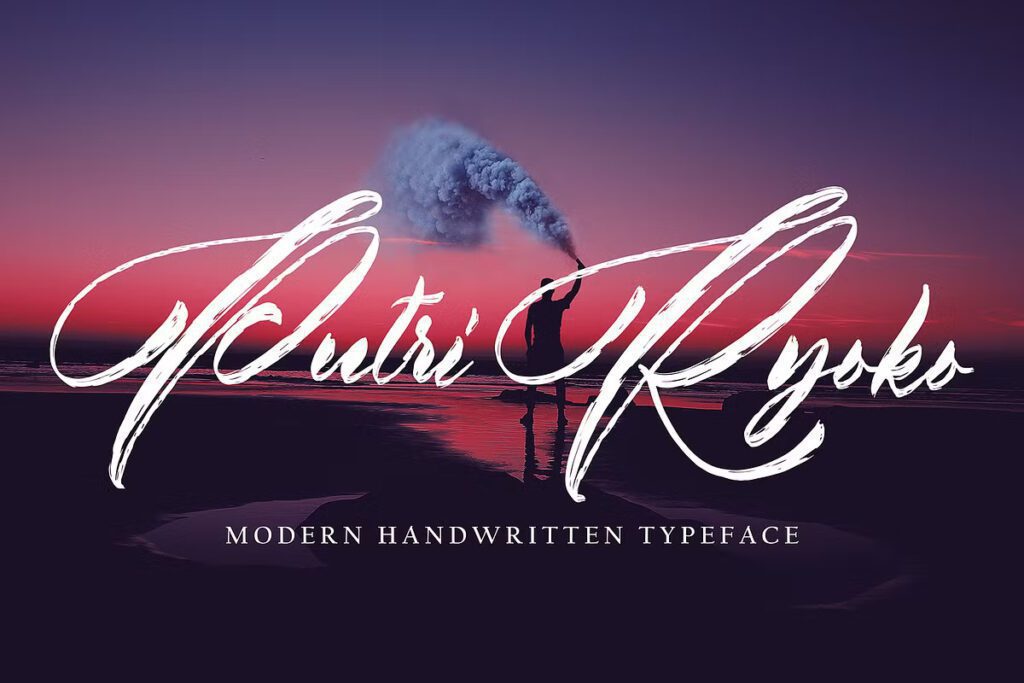
A handwritten script, not a display face
Putri Ryoko is sometimes billed as a versatile display font. Creative Market files it under Handwritten fonts, and the listing’s related searches point to logotype, cursive, signature, calligraphy and script styles. That is a more useful starting point. Expect a pen-drawn script rather than a bold poster face.
HaKi Studio’s own description is short. It says Putri Ryoko has a “new style” and suggests it for quotes, logos, blog headers, posters, branding, letters, invitations and stationery. The listing has five preview images. We have not examined the font files, so we cannot tell you whether it includes extras such as ligatures, swashes or alternate letters. The listing does not mention any, and it does not state language support either. If you need accented letters, type them into the live preview before you buy.
Do not confuse it with Putri Afifah, another script in the same HaKi Studio shop. The two names are similar, but they are separate products.
Using a signature-style script well
HaKi Studio’s suggestions fit the way handwritten scripts usually work best: in short phrases at a large size.
- Logos and signatures: a name or a brand mark for a photographer, a boutique or a small business
- Quotes and social posts: one line of text over a photo
- Wedding and party stationery: the couple’s names or the event title, with the details in a plainer font
- Product labels: candles, cosmetics and handmade goods
Avoid long paragraphs and all-caps settings. Script capitals joined together are hard to read.
Pair Putri Ryoko with a simple partner that does not compete. A quiet serif such as Lora or a light sans such as Montserrat works for dates, addresses and body text. Spaced-out small capitals in the partner font are a common and readable way to balance a script.
Does Putri Ryoko have ligatures or alternates?